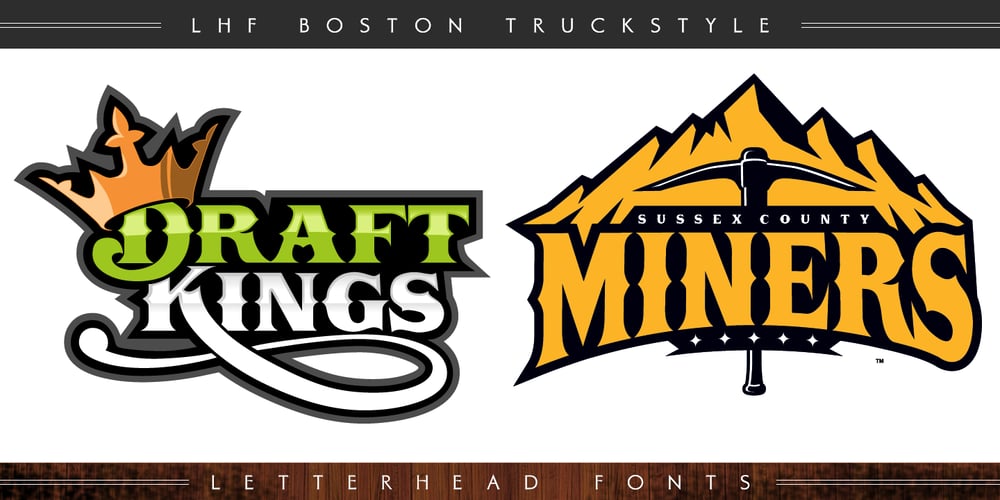
LHF Boston Truckstyle Font Family was designed by Ken McTague and published by Letterhead Fonts. LHF Boston Truckstyle contains 2 styles and family package options. One of Letterhead Font’s most popular typefaces with easy to read, bold characters. Set includes 2 versions: “LHF Boston Truckstyle SC” contains larger decorative caps with regular caps on the lowercase keys (small caps). “LHF Boston Truckstyle C” also contains decorative caps, but all letters are set at the same height.